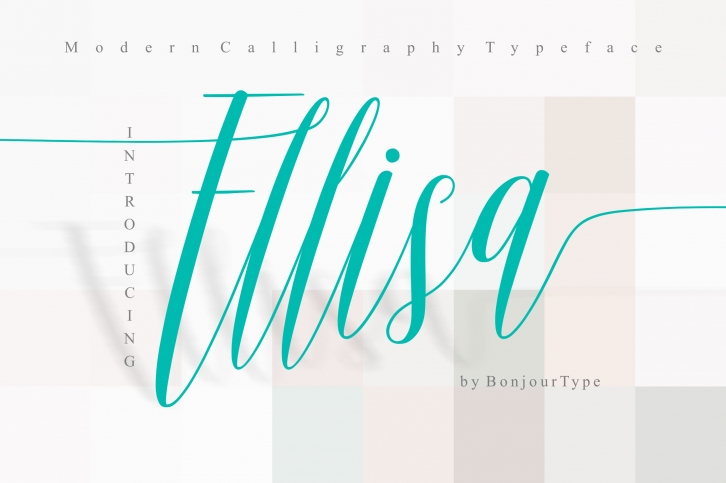
Ellisa is a great font that was designed by Bonjour Type. Imagine the amount of combinations you can create using this font! The archive is 19.19 MB and it was released on April 15, 2019. Ellisa looks beautiful on wedding invitations, greeting cards, logos, posters, labels, t-shirt designs, logos, business cards and is perfect for use in ink or watercolor works, fashion, magazines, packaging and food menus, children's books and more!